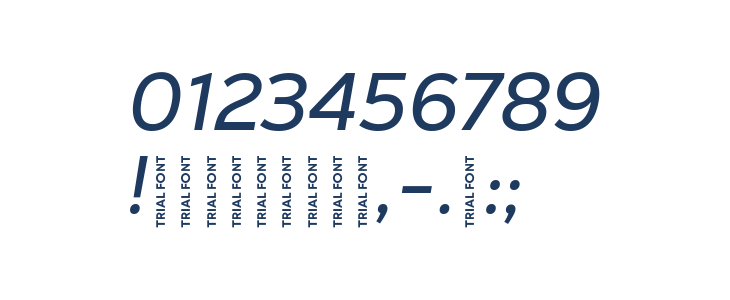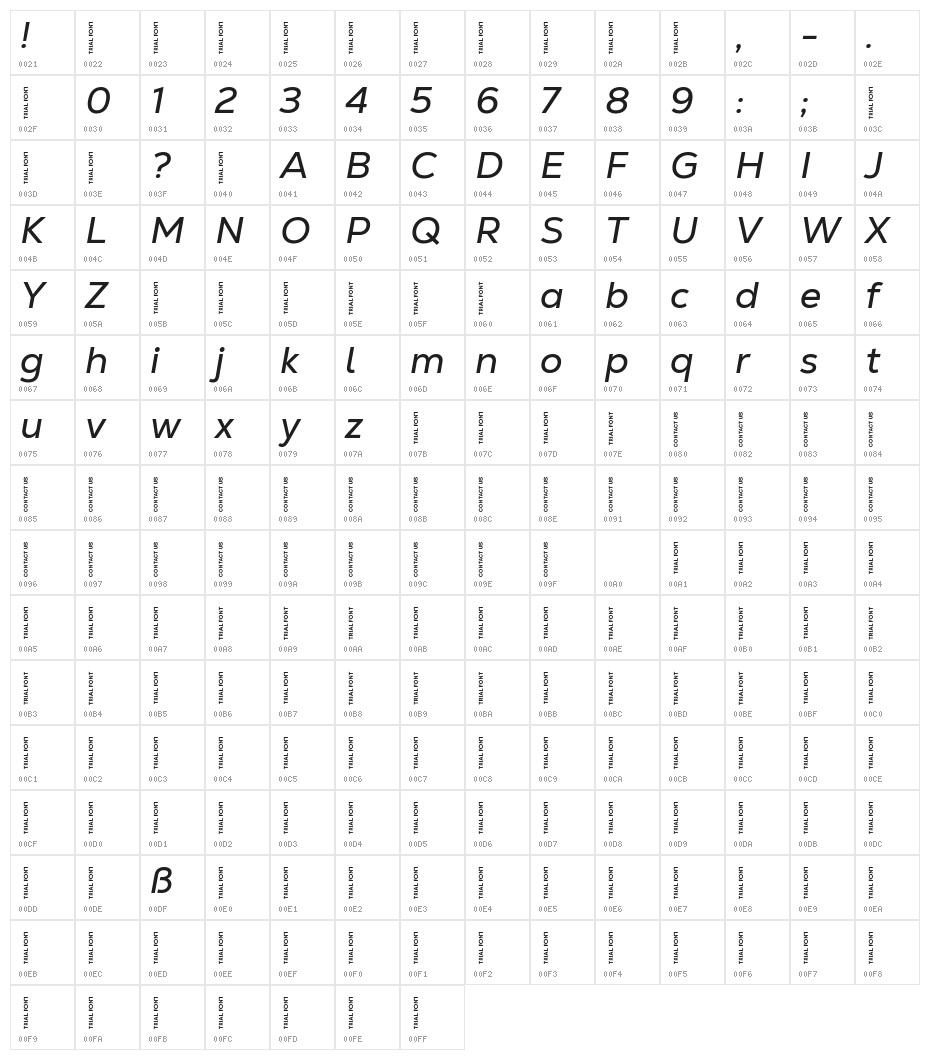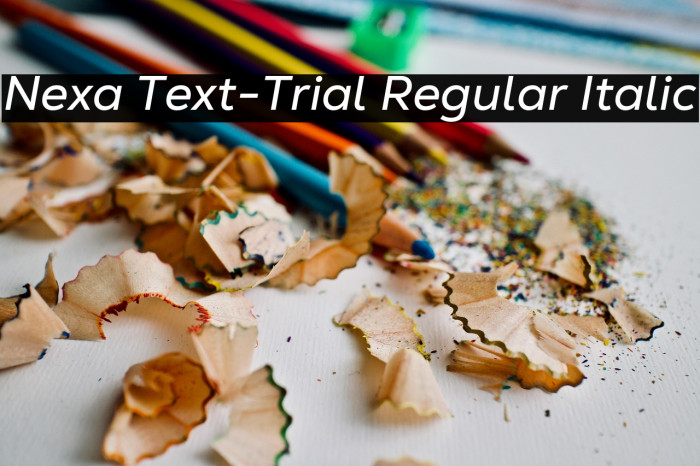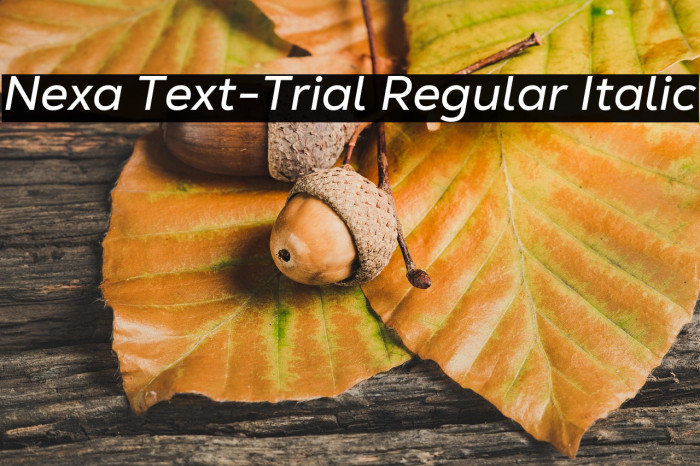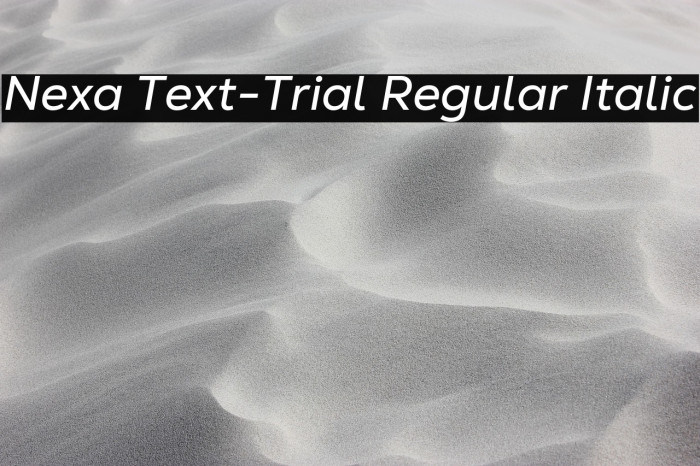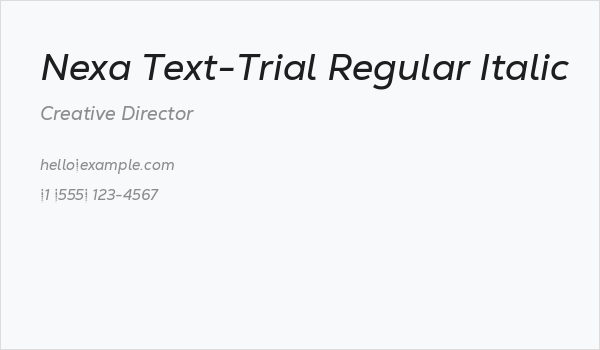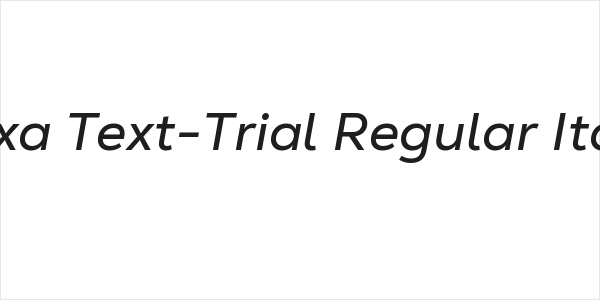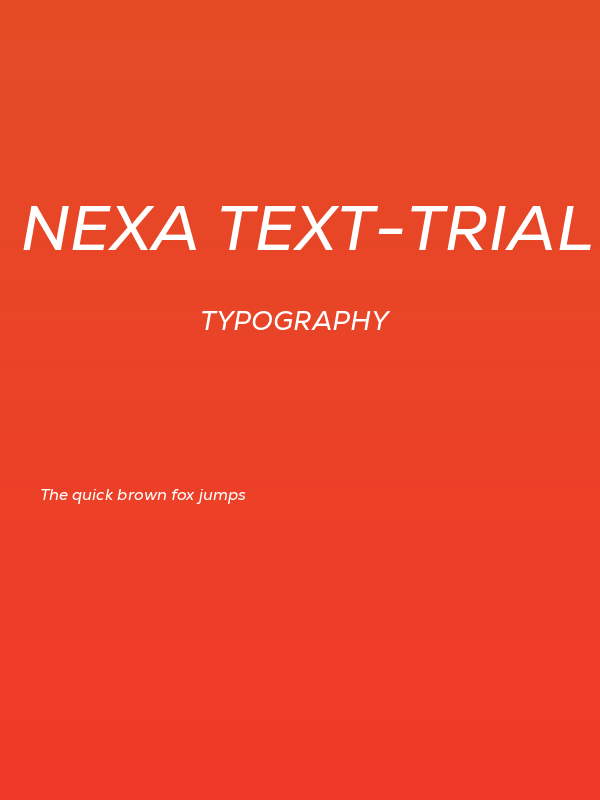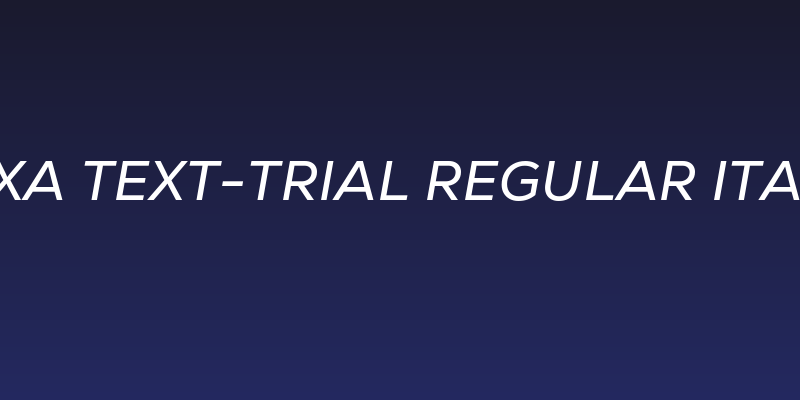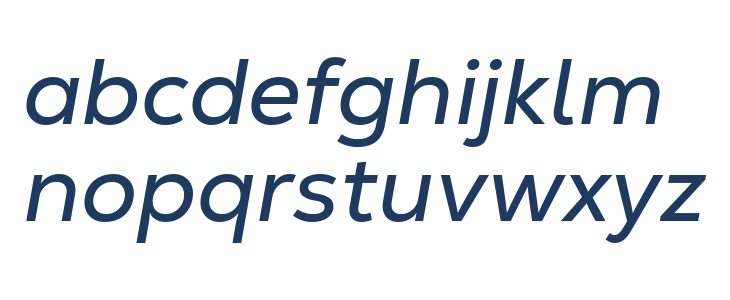
Nexa Text-Trial Regular Italic Font
Nexa Text-Trial Regular Italic Description
This font exhibits a clean and modern sans-serif style with a slight italic slant, giving it a dynamic and contemporary appearance. The characters are well-balanced with smooth curves and uniform stroke widths, providing excellent readability. The uppercase letters are bold and assertive, while the lowercase letters maintain a friendly and approachable feel. The numerals are clear and distinct, making them suitable for various applications. The special characters are designed to complement the overall aesthetic, ensuring consistency across all text elements.